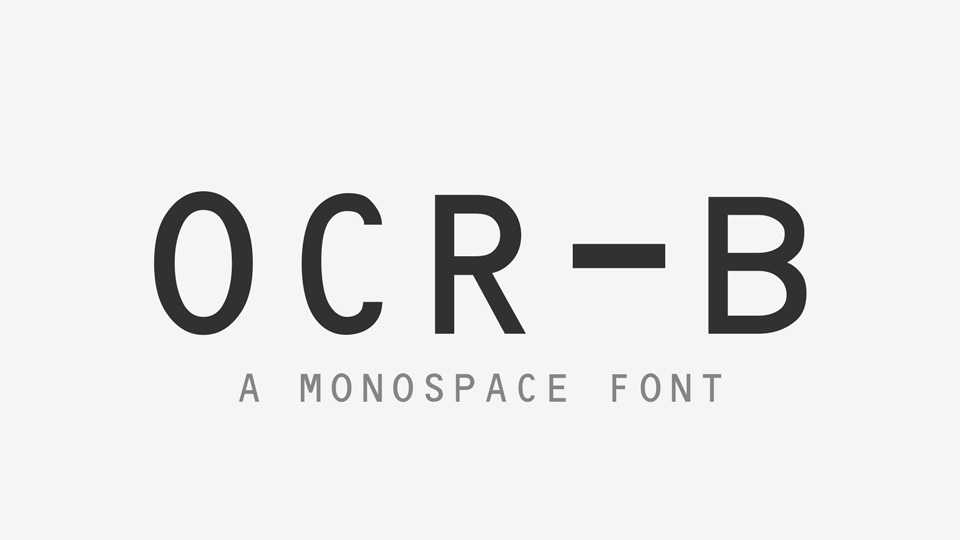
Download OCR-B typeface, a monospace typeface originally developed in 1968 by Adrian Frutiger with many improvements. OCR-B is extremely useful for documents in Eastern-European countries.